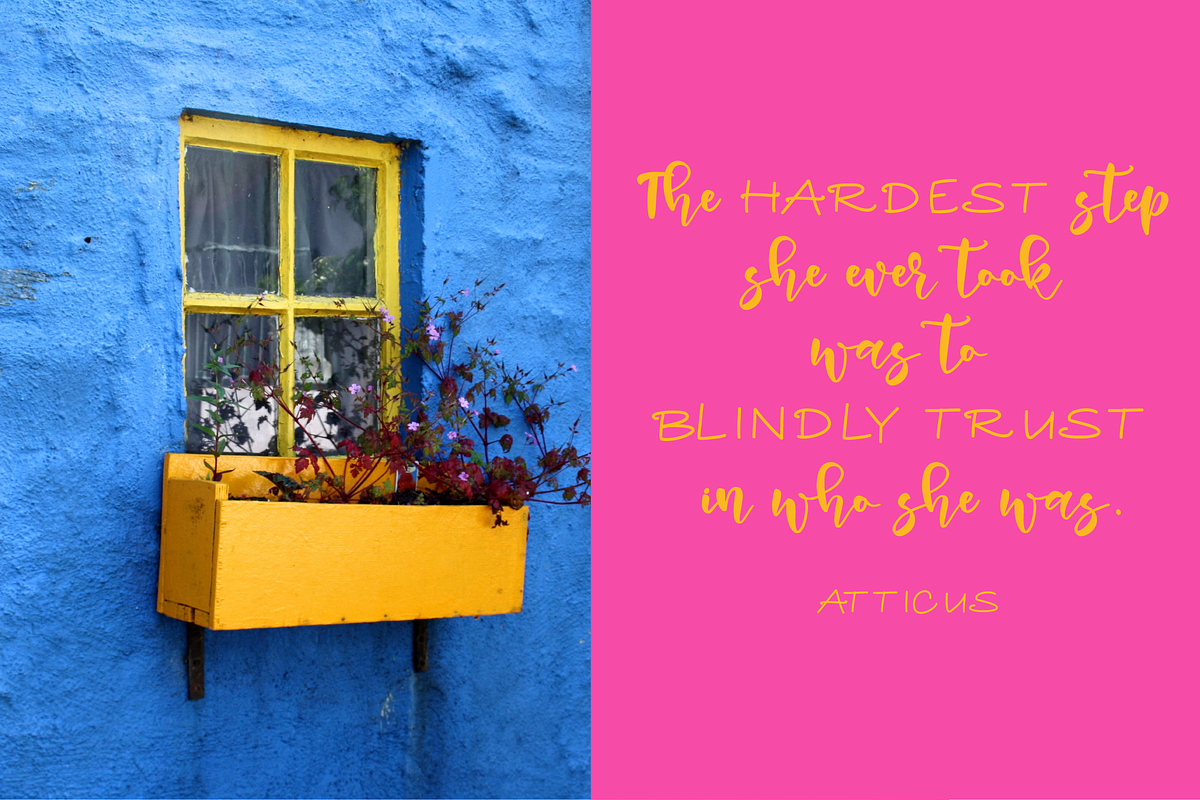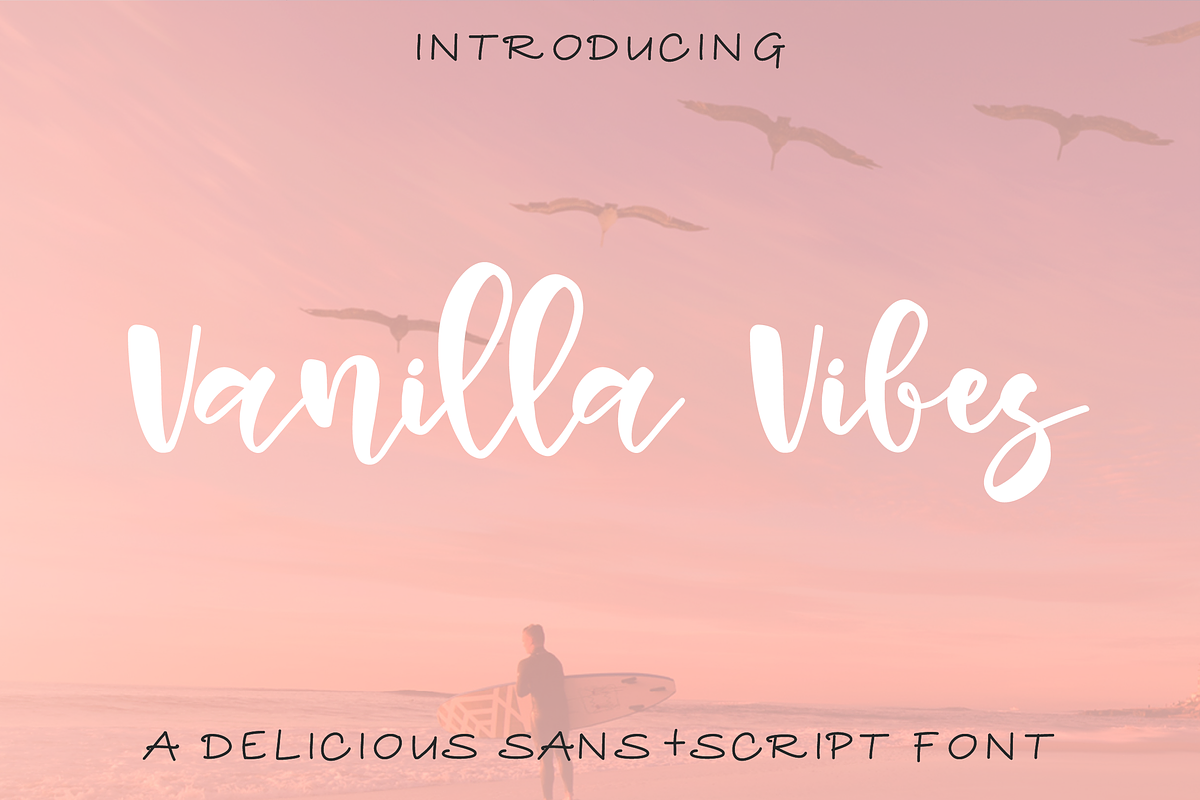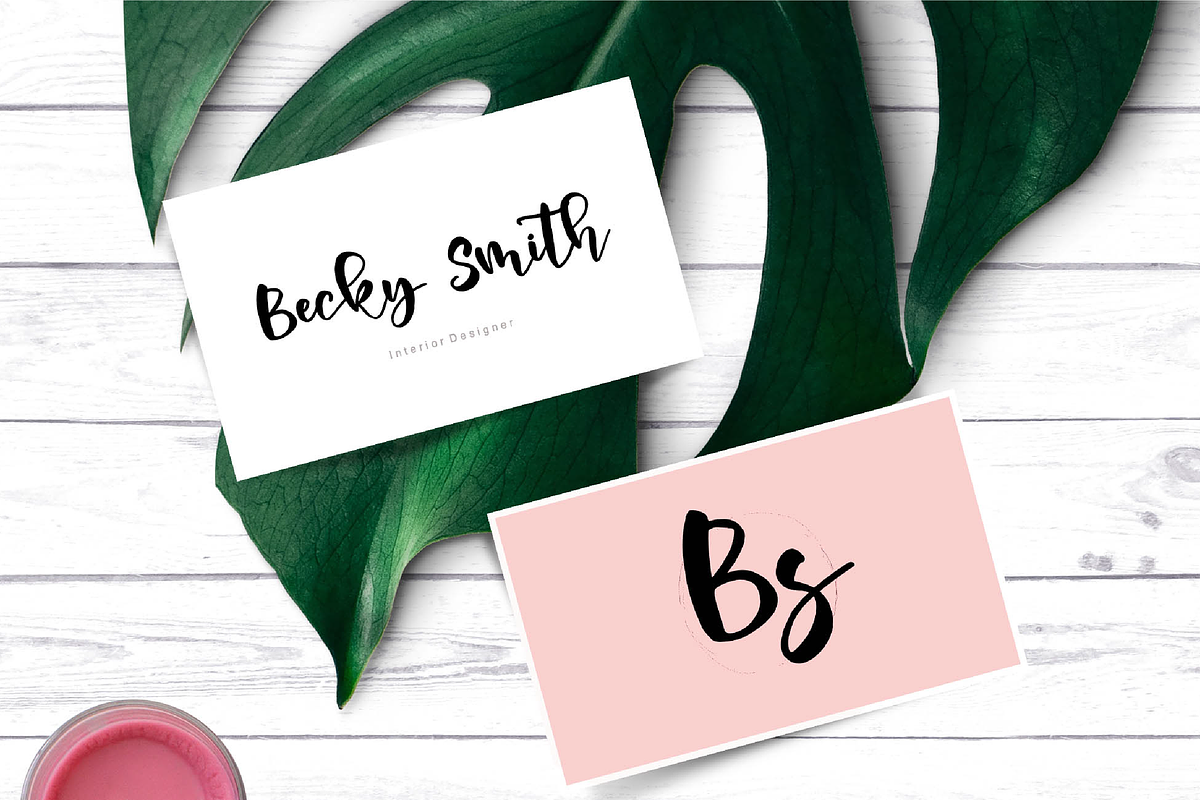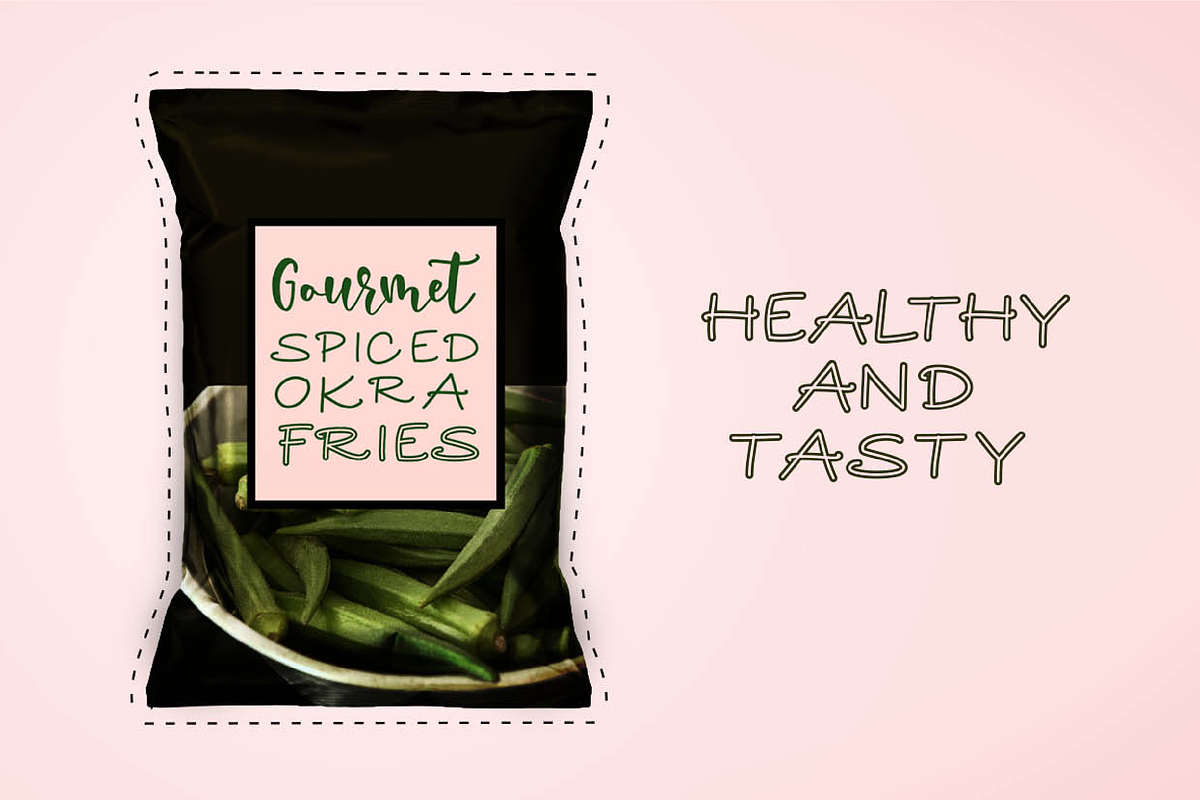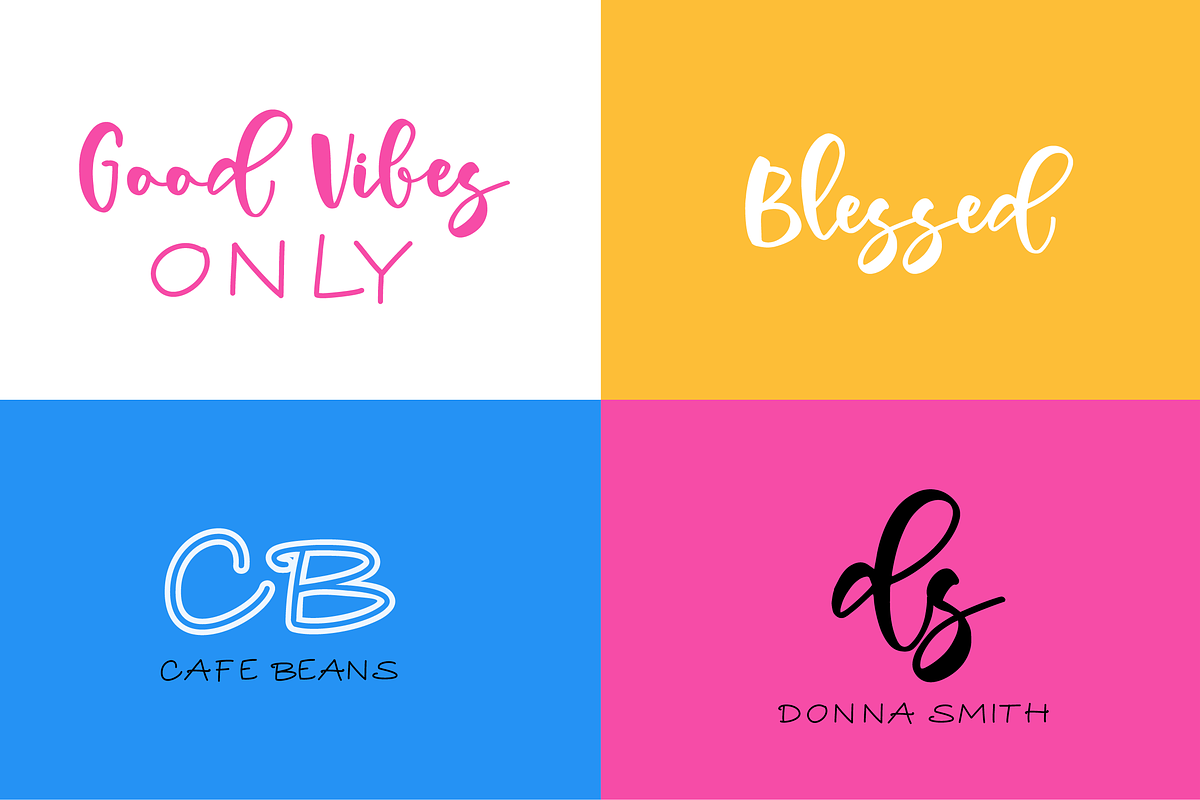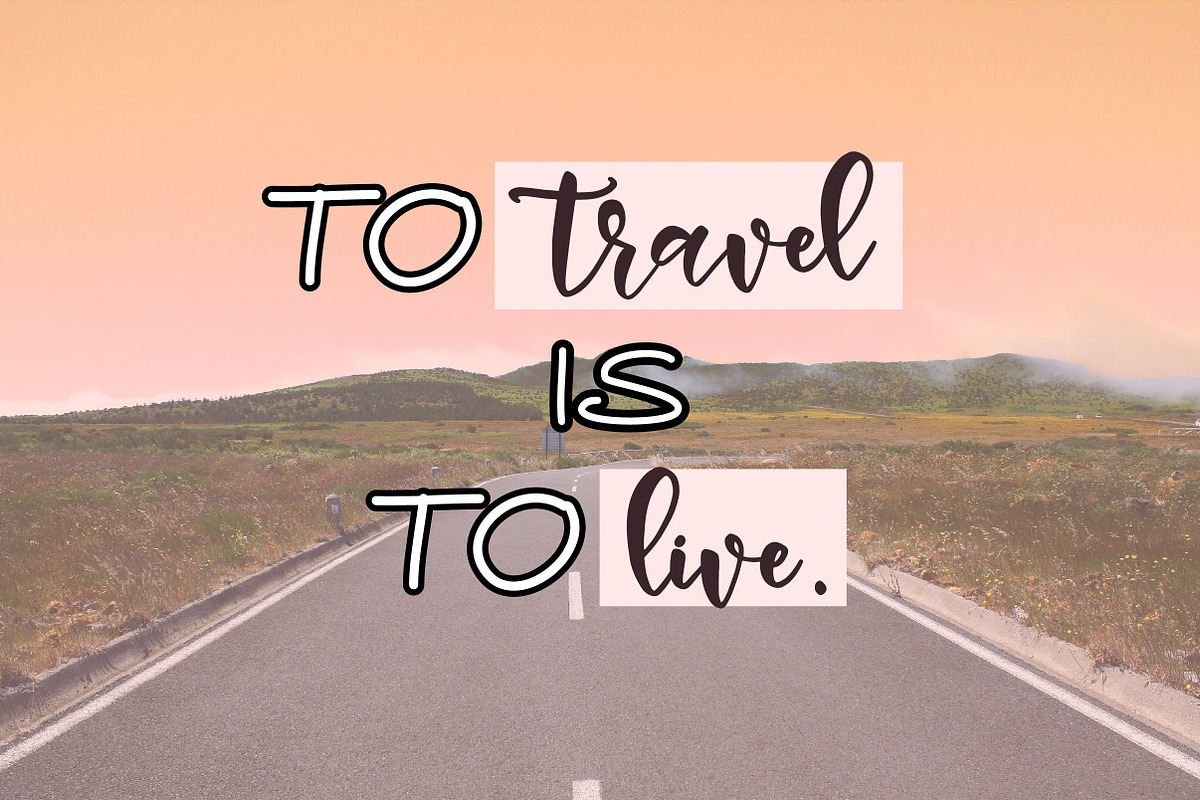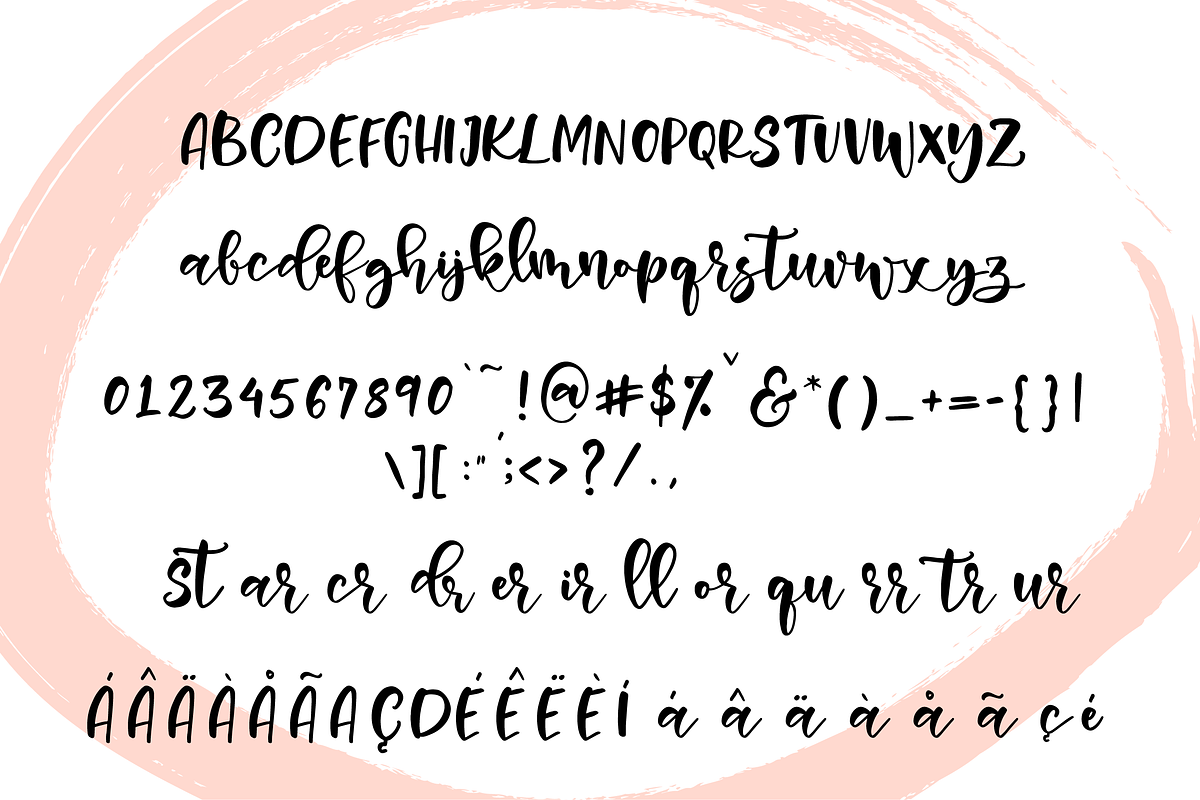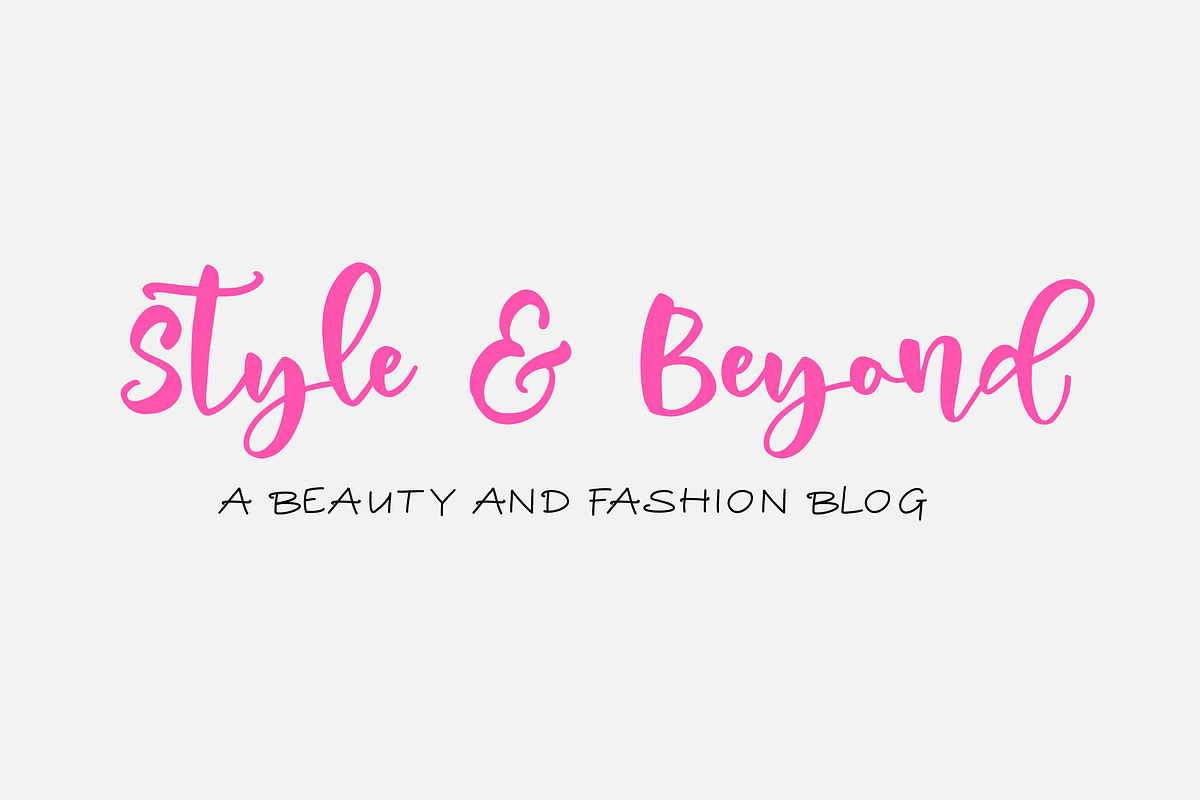
Vanilla Vibes Font Duo
Meet Vanilla Vibes a fun and bouncy font set of brush lettered script, accompanied by a set of sans serif that compliments it beautifully.
Vanilla Vibes is ideal for all kinds of packaging as well as design projects, photo overlays, greeting cards and so much more.